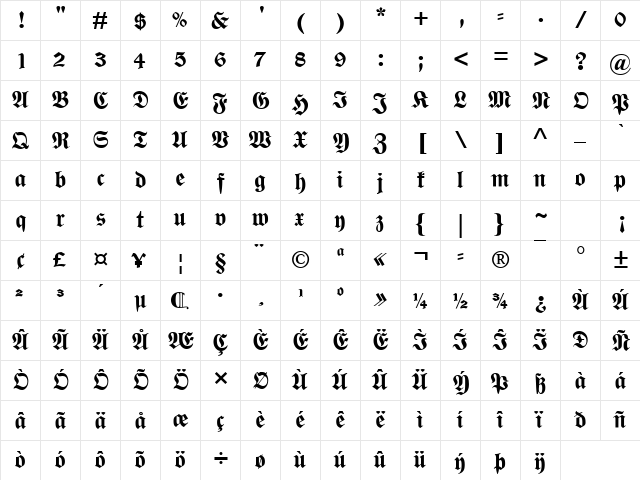
Wittenberger Fraktur MT Bd Regular
Design Context for Wittenberger Fraktur MT Bd Typeface
Wittenberger Fraktur MT Bd draws on the rich tradition of blackletter calligraphy, with dense, angular strokes that evoke medieval manuscripts and old-world craftsmanship. Its bold stroke weight gives it real presence on the page.
Well-suited to band logos, craft beer branding, tattoo lettering, and heritage-themed identities.
Font Pairing: Pair with a clean neutral sans-serif for body copy to let Wittenberger Fraktur MT Bd's character lead without overwhelming the composition.
Pro Tip: Use Wittenberger Fraktur MT Bd sparingly at large sizes. Even a single word set in blackletter can define the visual register of an entire design.